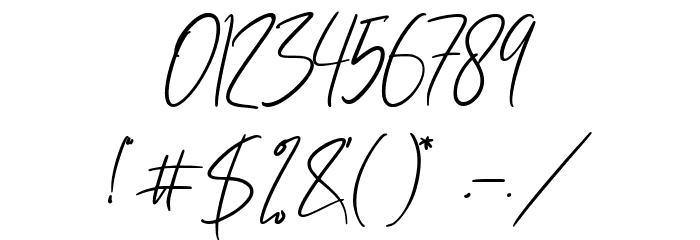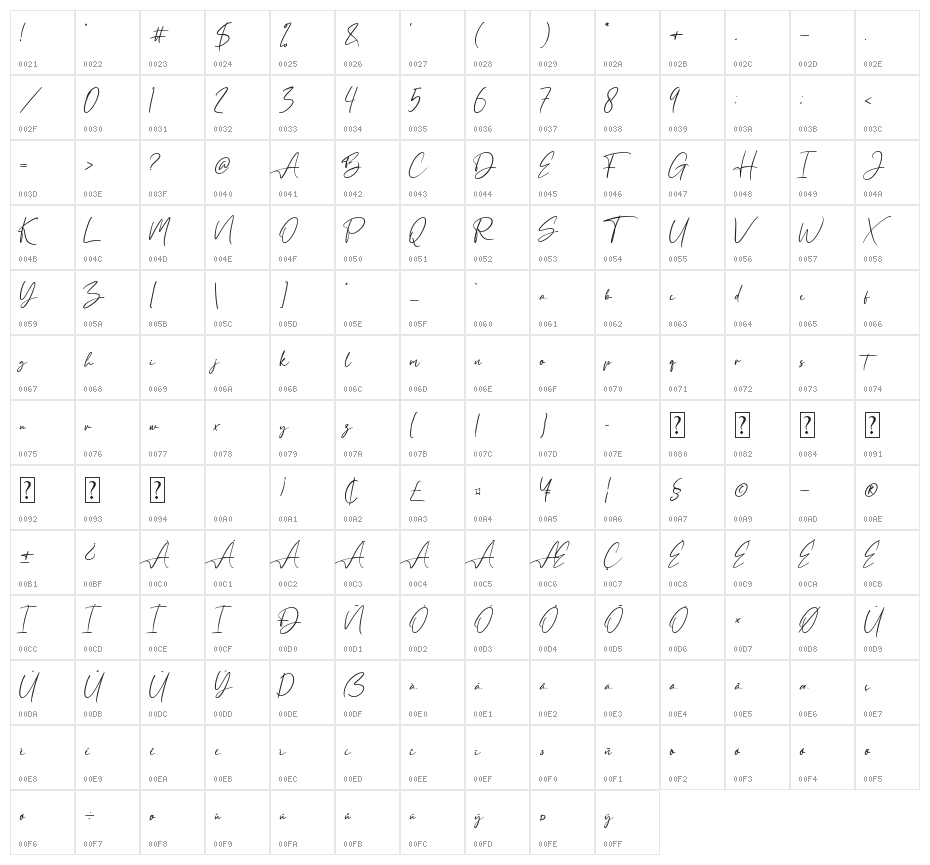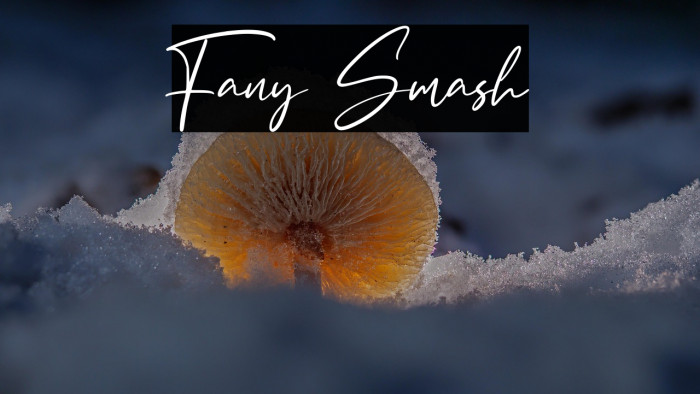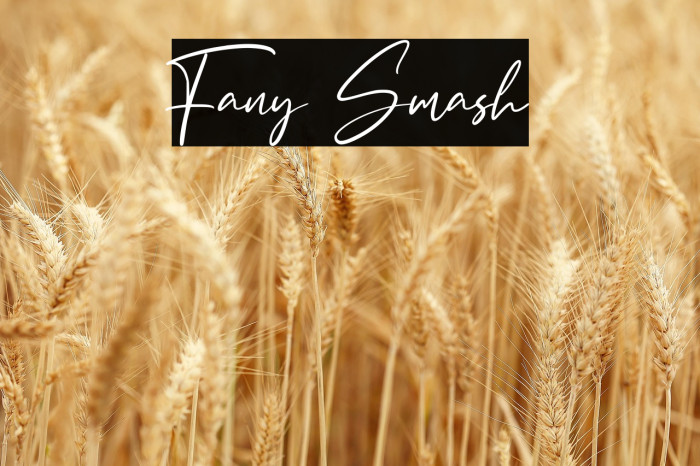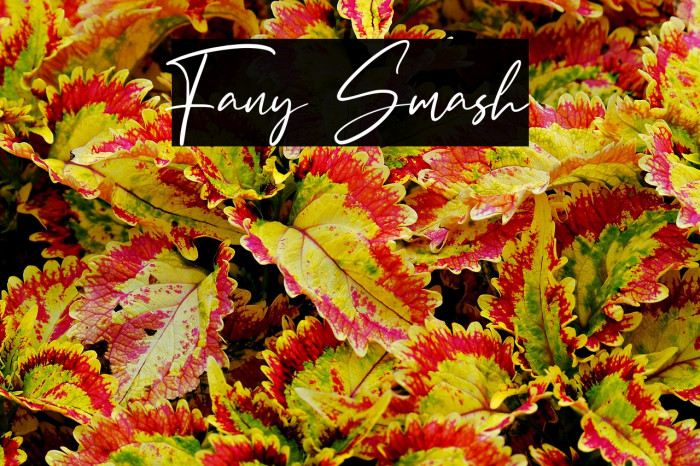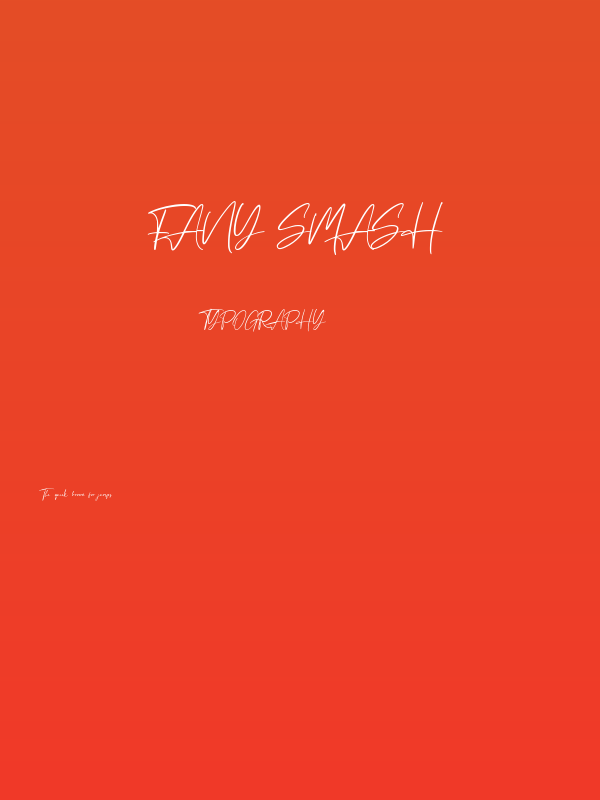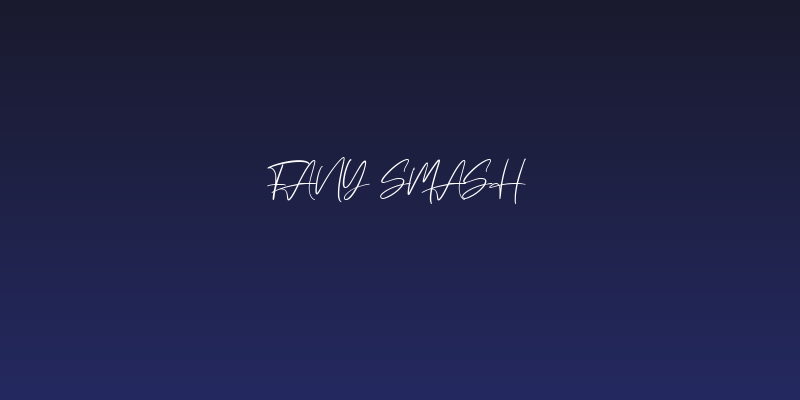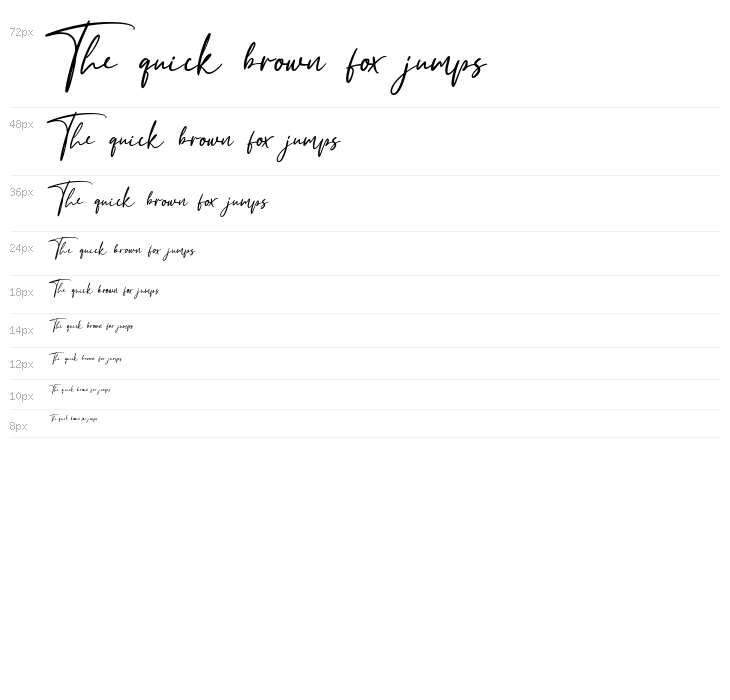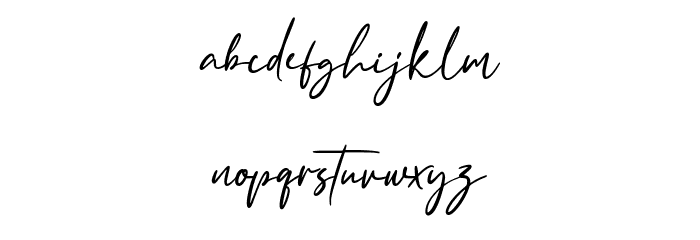
Fany Smash Font
Fany Smash Description
This font exudes a dynamic and expressive style, characterized by its fluid, cursive script that mimics natural handwriting. The letters are elegantly connected, with a slight slant that adds to its casual yet sophisticated appearance. The strokes vary in thickness, providing a medium contrast that enhances readability while maintaining an artistic flair. The uppercase letters are bold and prominent, while the lowercase letters are more delicate, creating a harmonious balance. The numerals and special characters are consistent with the overall style, ensuring a cohesive look across all text elements.